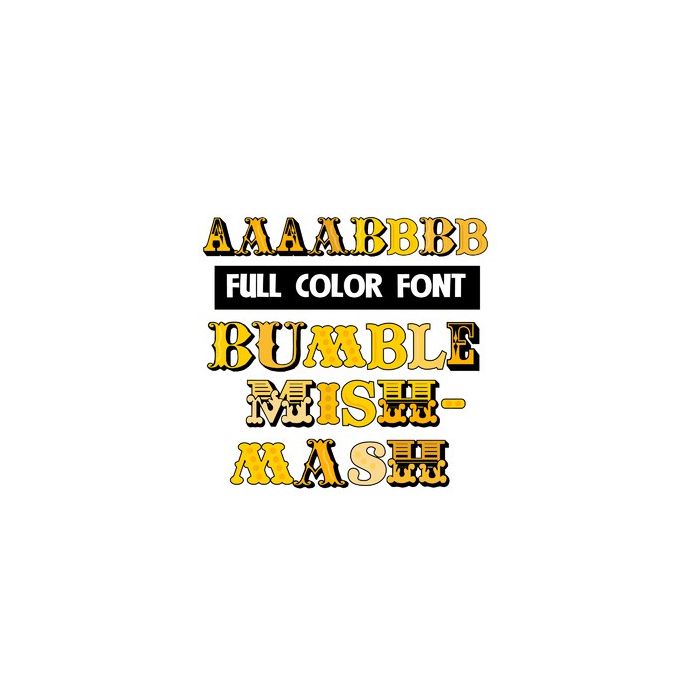
This full-color font features yellow and black lettering in a mix of styles. There is an alt version of every letter you can access through your system or Silhouette's glyph map.